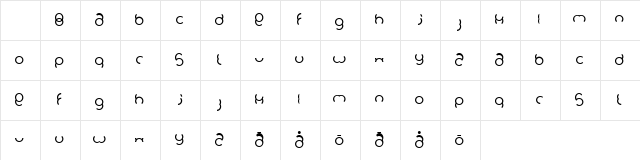
foob Regular Font Preview
foob Regular
foob Regular Font Details
Design Context for foob Typeface
foob is a composed and adaptable typeface that performs quietly and consistently across a wide range of design contexts.
Pro Tip: Pair foob with a font of contrasting weight or personality to build a more expressive typographic hierarchy.